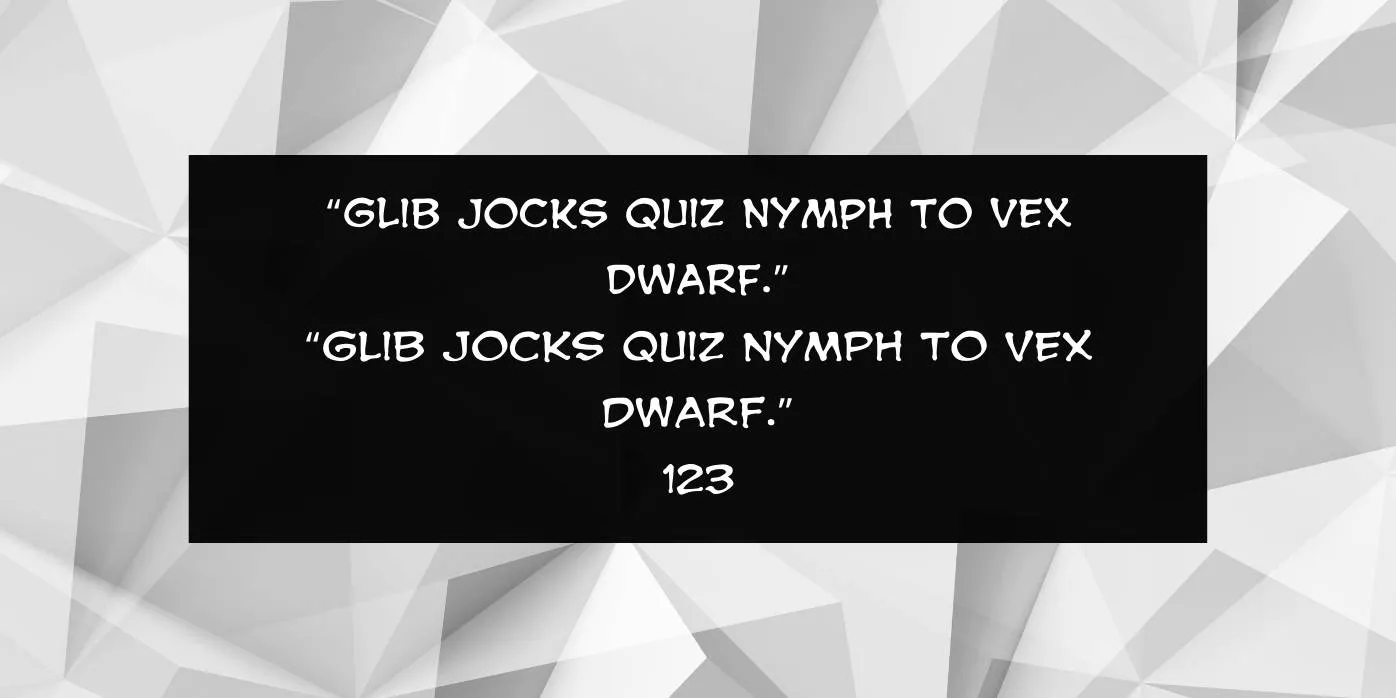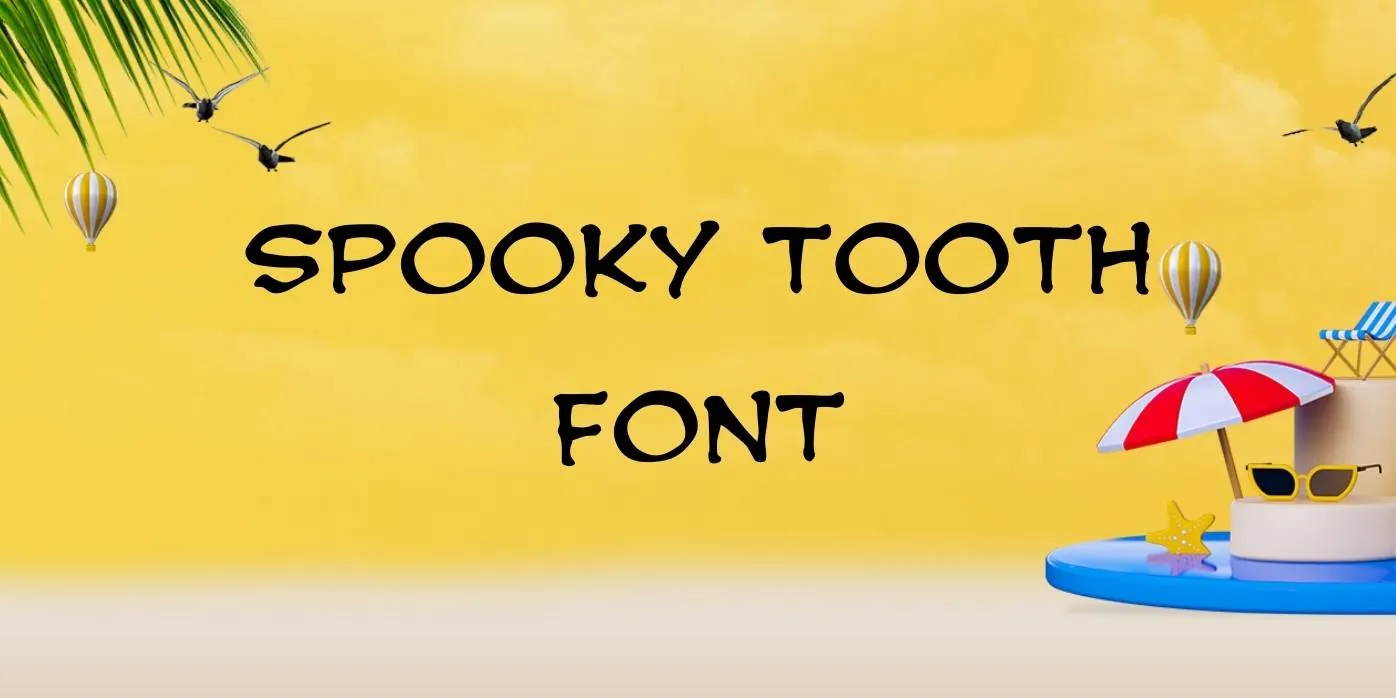
Spooky Tooth Font
Spooky Tooth Font is a decorative font characterized by its spooky and playful letters. It is perfect for Halloween-themed decorations or invitations. The Spooky Tooth Font was created by designer Christopher Jarman in 2000. The glyph of this font is very unique, as each letter is designed with perfection.
The font also includes playful embellishments, such as bats and spiders. This makes it perfect for creating Halloween-themed designs. Despite its spooky appearance, the font is actually quite versatile. It can be used for a variety of purposes, including invitations, website headers, and even logos.
This font has special characters that will provide an extraordinary touch when used with magneto font. If you’re looking for a font that is both spooky and fun, then this font is perfect for you!